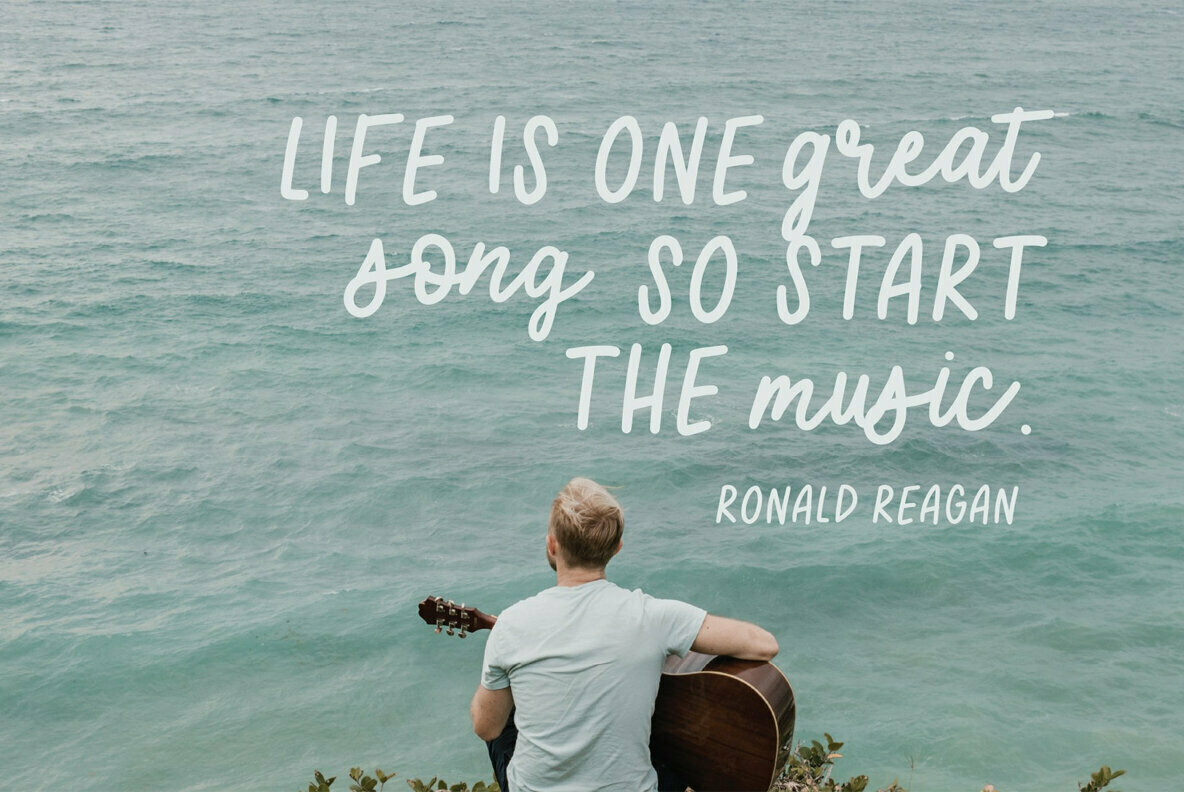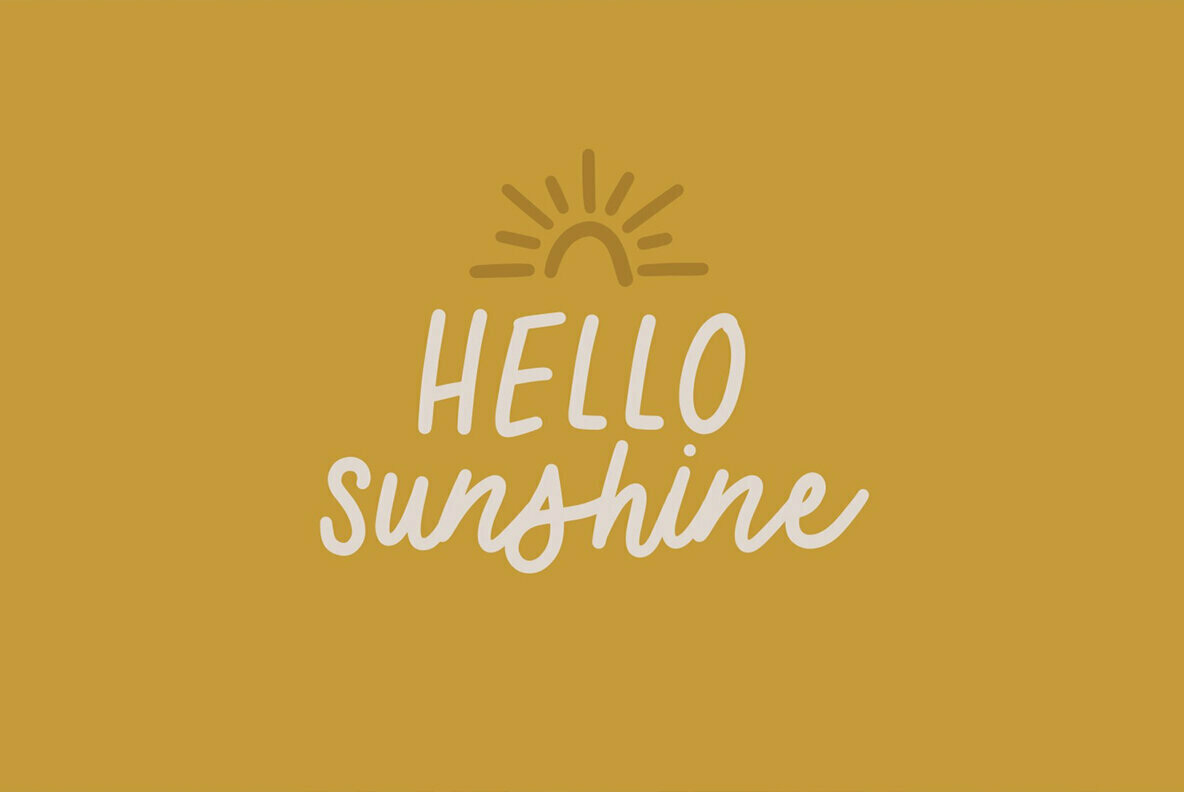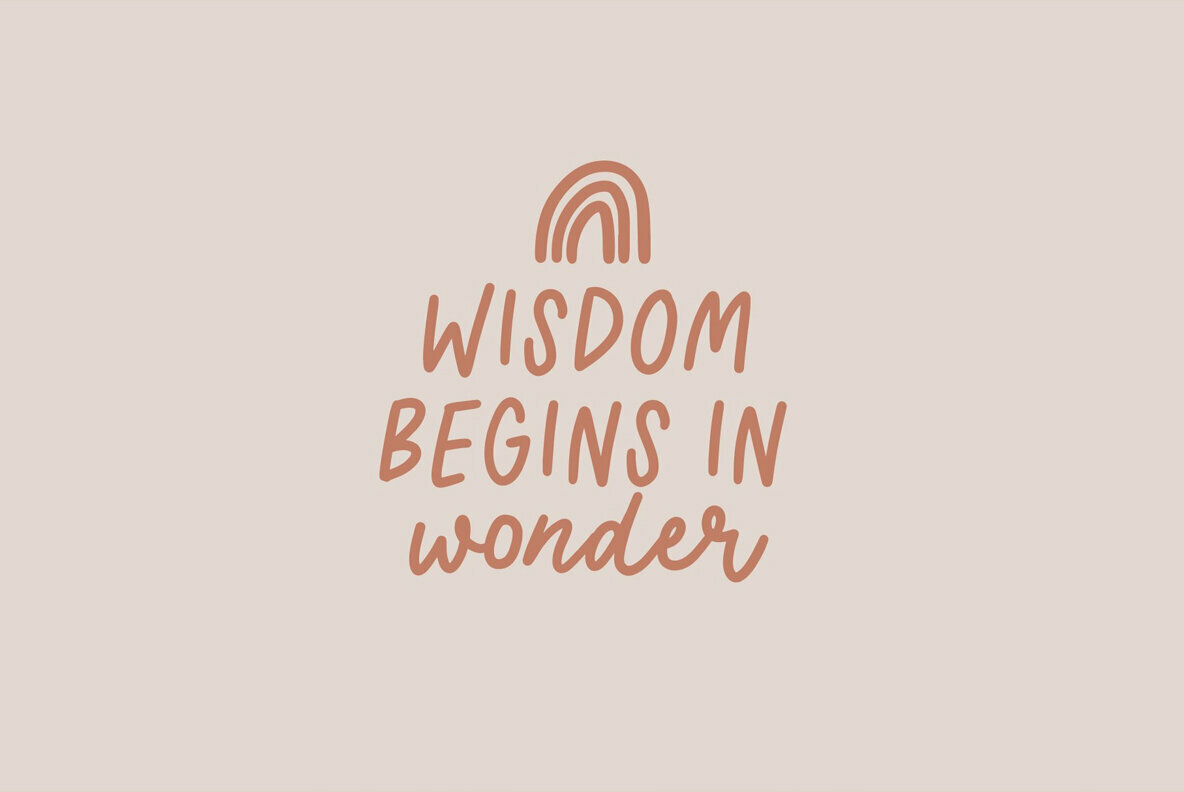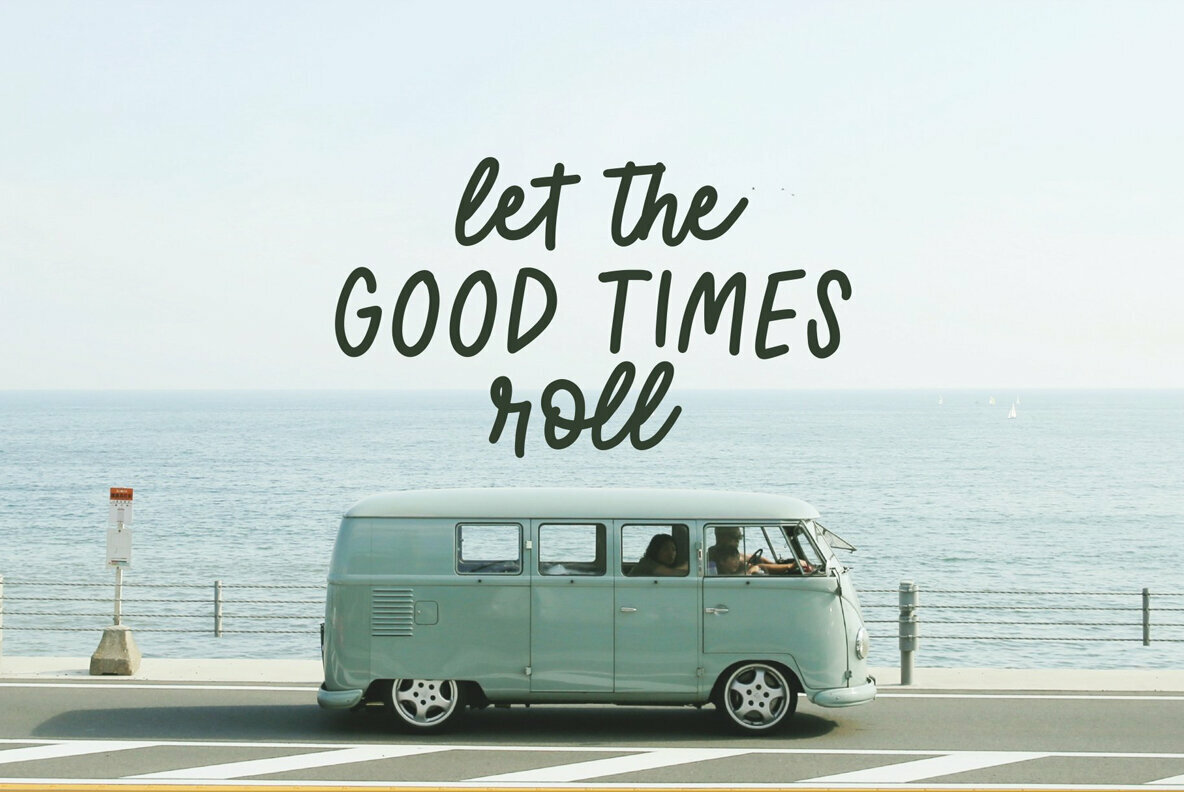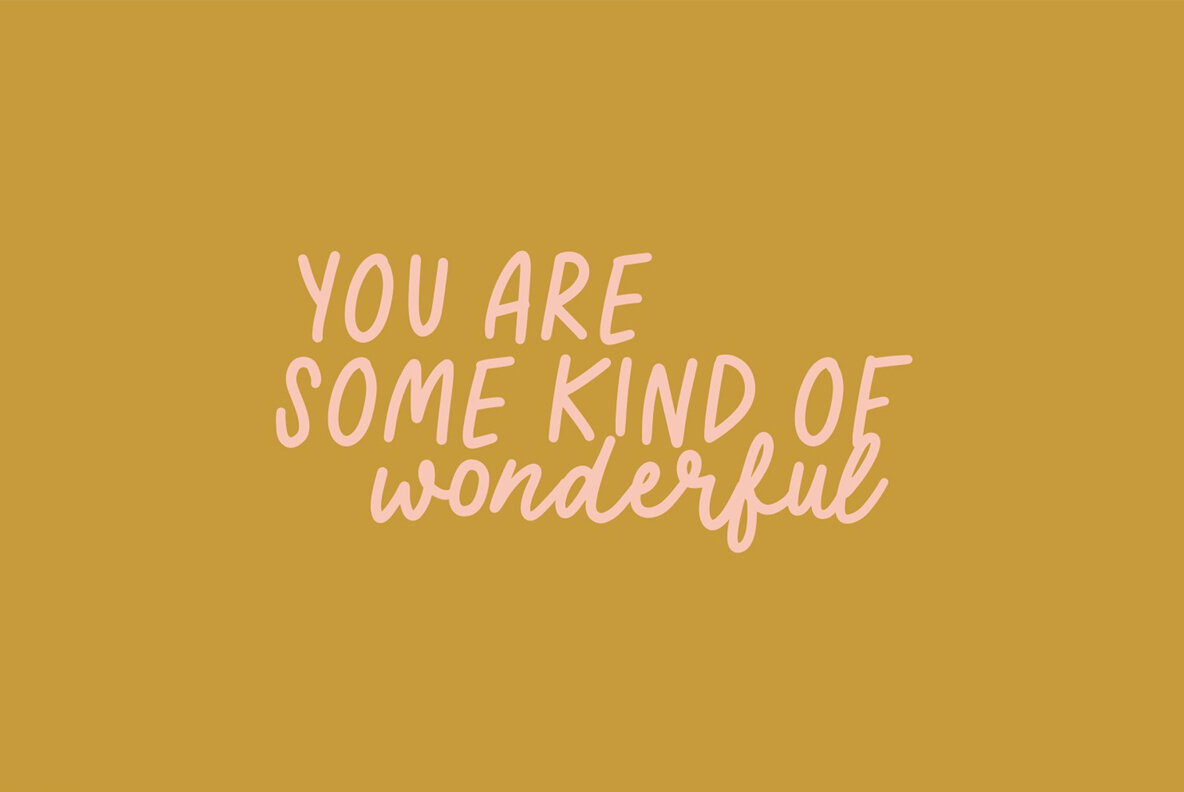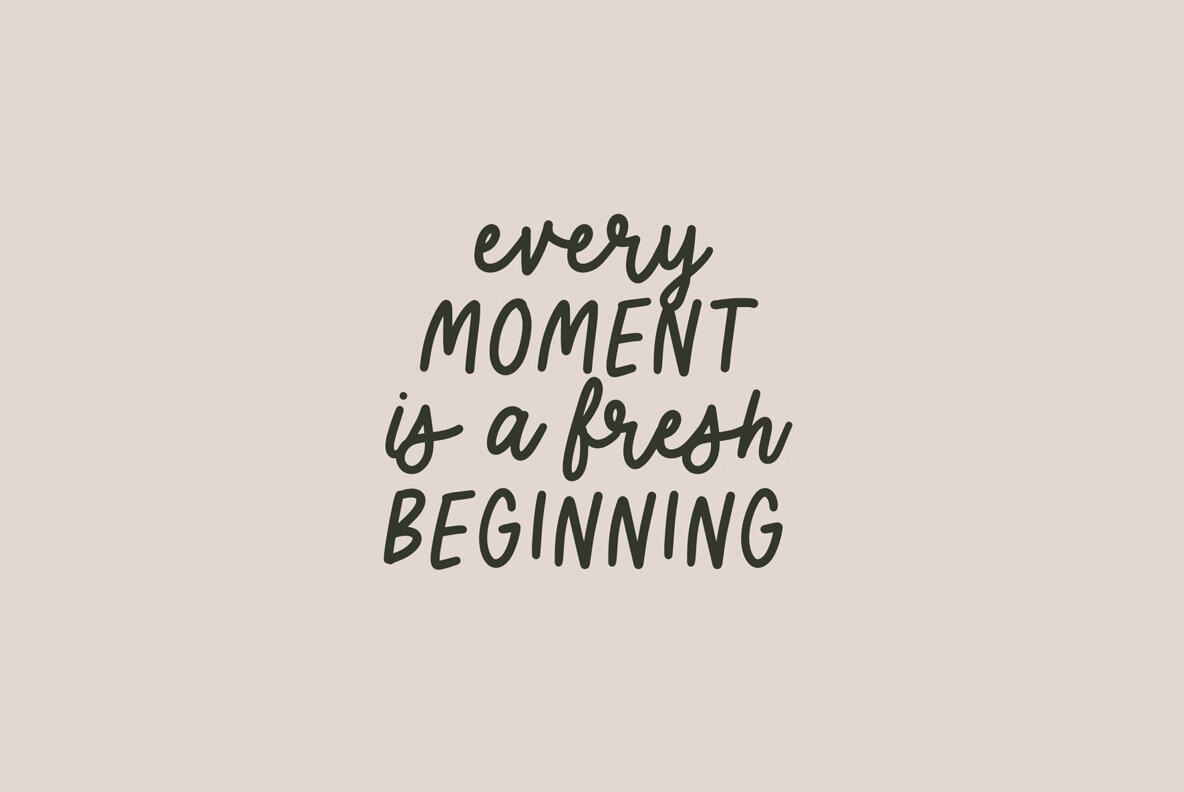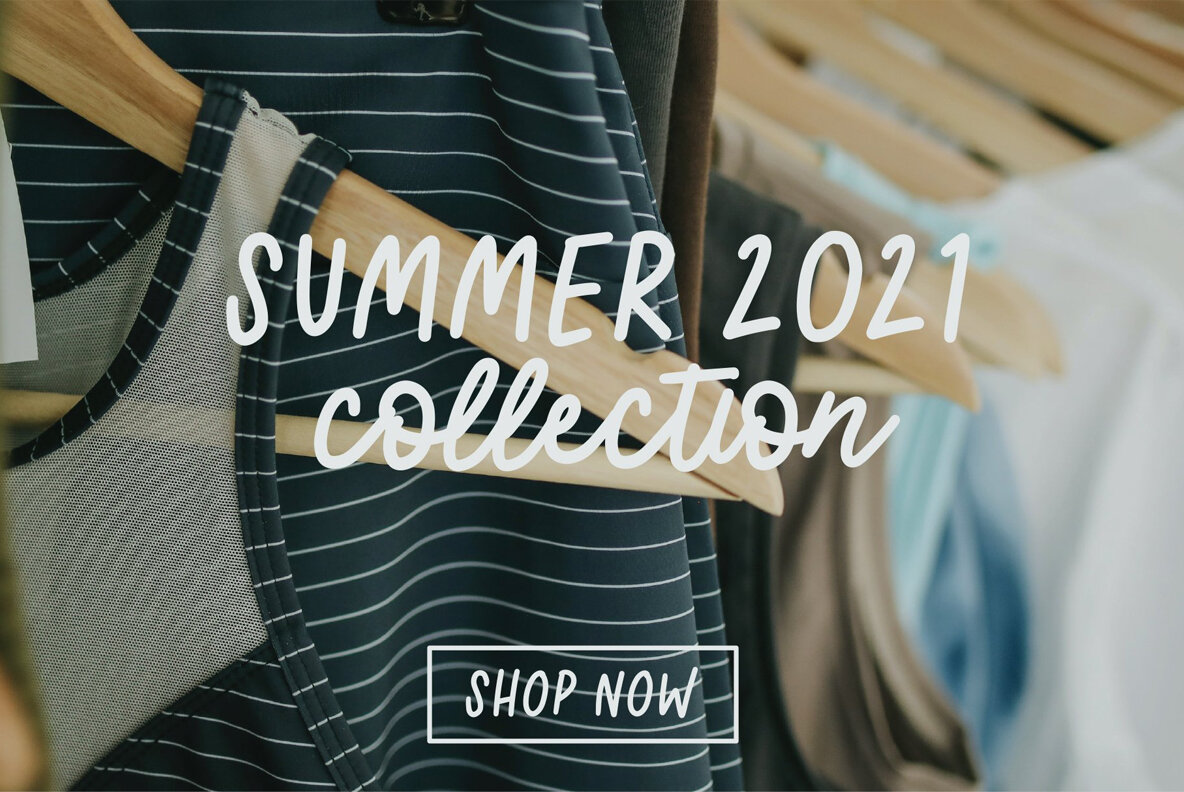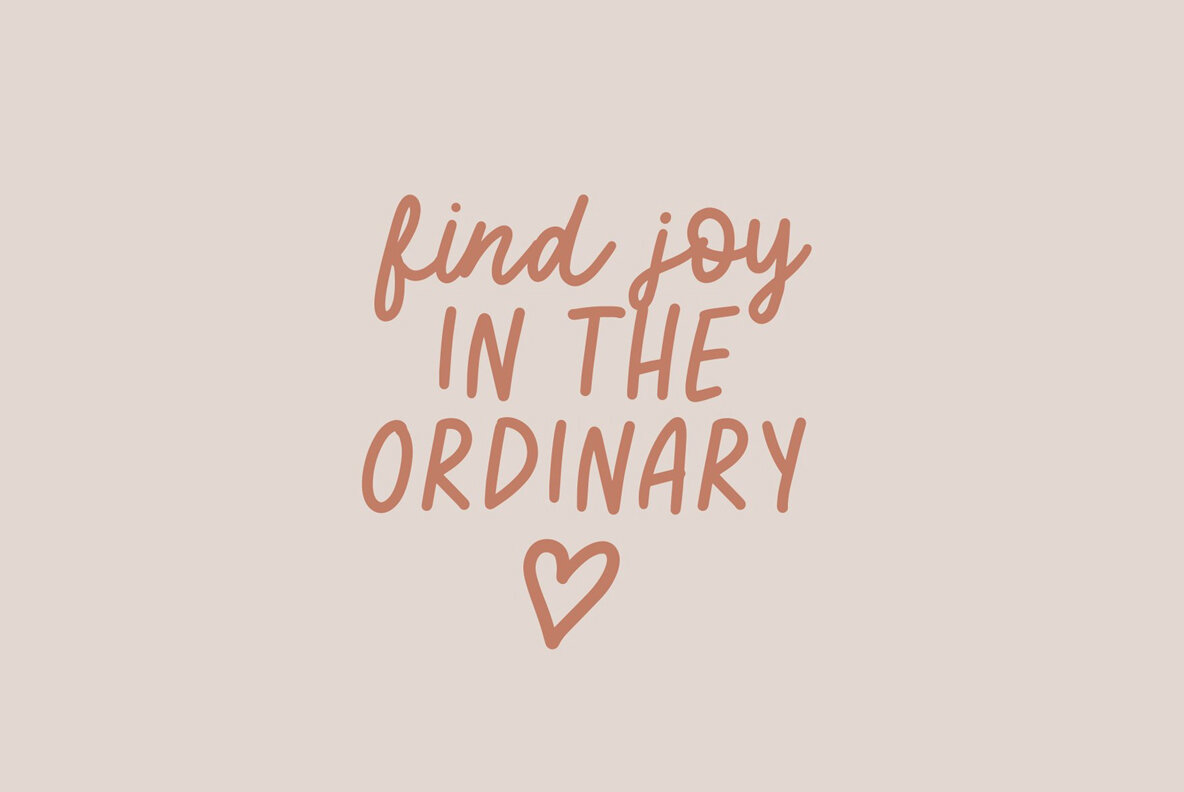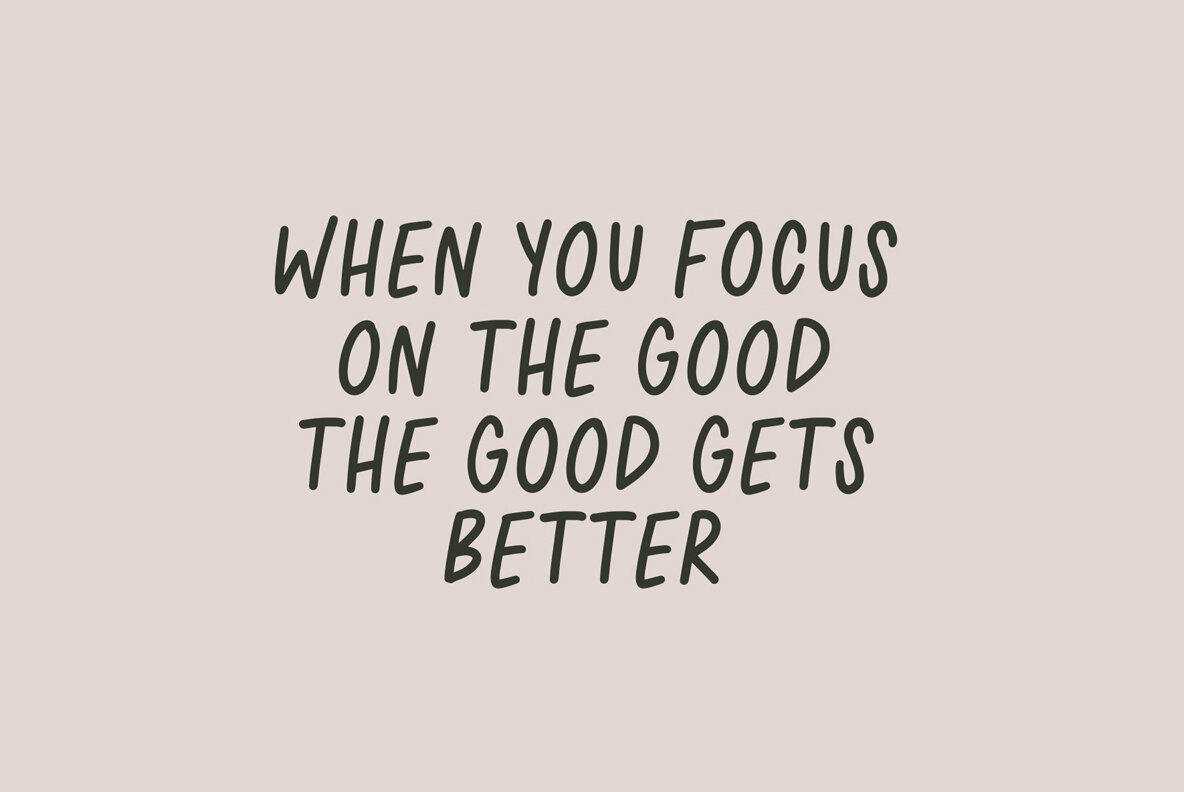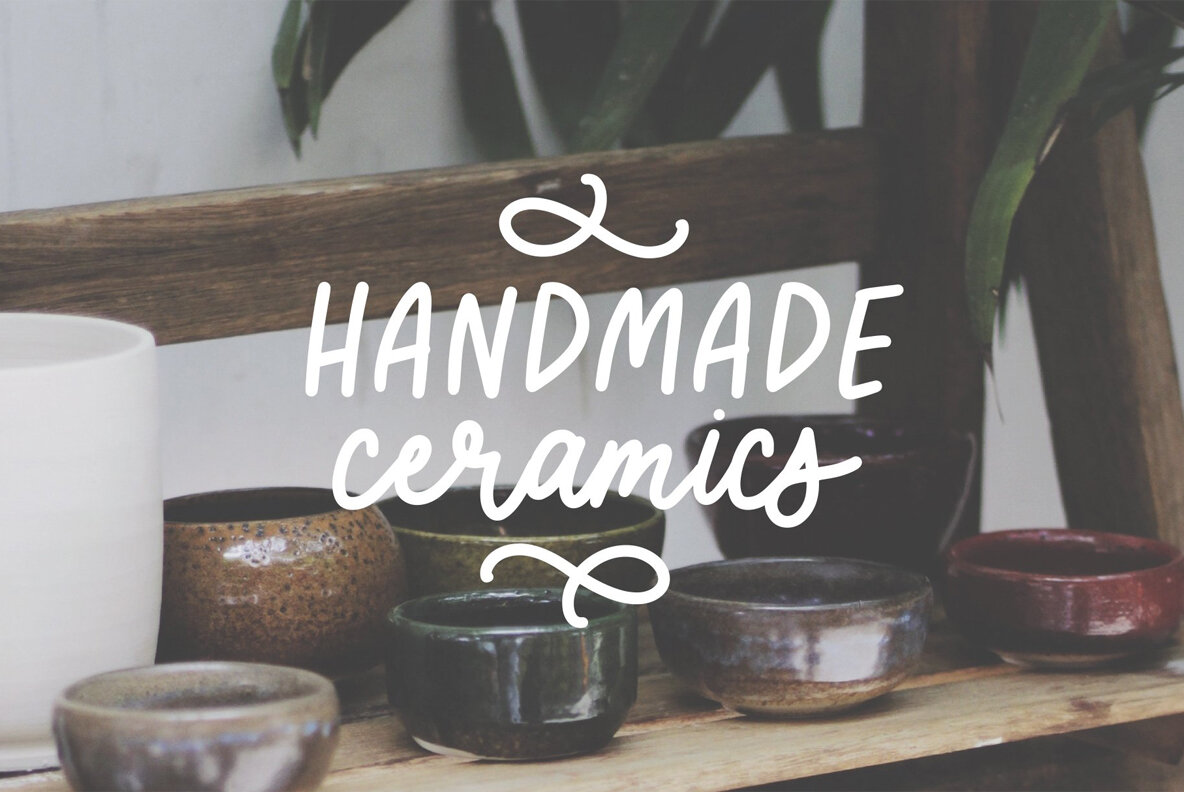
San Clemente Font Duo
This font duo is the perfect monoline set! The two fonts are the same weight so that they look great together just by making them the same size!
The script lowercase letters connect to each other and the uppercase stays separate so that you can choose what letters to connect! This way you can create a unique and hand-drawn look every time.
The hand-drawn design has it's own imperfect charm while being simple enough to read clearly.